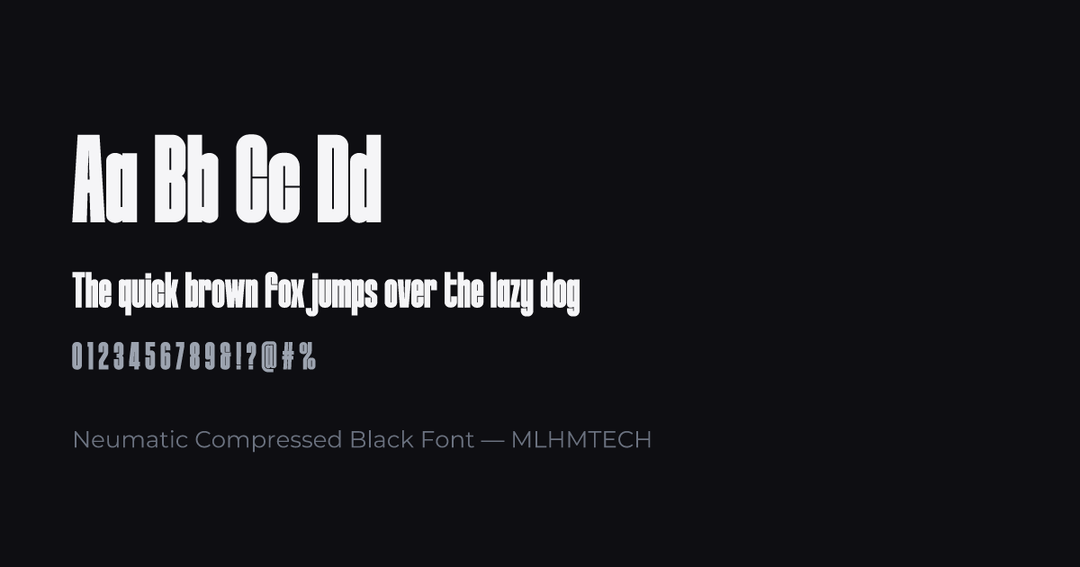
Neumatic Compressed Black Font
Neumatic Compressed Black is a bold, condensed sans-serif font that commands attention. Ideal for headlines, posters, and branding projects.
Neumatic Compressed Black is a high-contrast, condensed sans-serif typeface that delivers a powerful and modern look. Its tight letterforms and heavy weight make it perfect for impactful headlines, posters, and branding materials where you need to make a statement.
This font is part of the Neumatic family, known for its geometric structure and clean lines. The compressed style saves space while maintaining legibility, making it a versatile choice for both print and digital design. Whether you're creating a logo, a movie title, or a social media graphic, this font adds a professional and edgy feel.